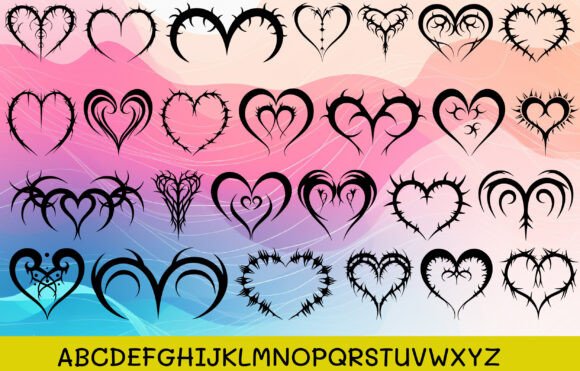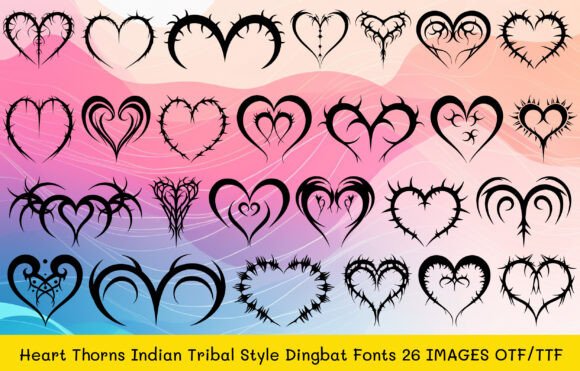
Introducing Heart Thorns Font: A Unique Blend of Tribal Elegance and Romantic Charm
Are you a designer, crafter, or DIY enthusiast looking for a font that adds a touch of cultural charm and whimsy to your creations? Look no further than the Heart Thorns Font, a digital product featuring 26 unique heart-themed designs inspired by intricate Indian tribal patterns. This stunning font is perfect for crafting, logos, invitations, and more, allowing you to bring creativity and style to your digital and print projects.
Inspired by Indian Tribal Patterns
The Heart Thorns Font is deeply rooted in Indian tribal art, known for its intricate patterns, bold lines, and symbolic motifs. Each letter from A to Z has been carefully crafted to reflect the beauty and elegance of these traditional designs, with a modern twist. The result is a font that is both timeless and trendy, perfect for those who appreciate cultural heritage and unique aesthetics.
Key Features of Heart Thorns Font
- 26 Unique Designs: Each letter from A to Z features a distinct heart-themed design, ensuring that your creations stand out from the crowd.
- Tribal Inspiration: Inspired by Indian tribal patterns, these designs bring a touch of cultural charm to your projects.
- Versatile Use: Perfect for crafting, logos, invitations, and more, this font is ideal for a wide range of creative projects.
Whether you’re a professional designer or a DIY enthusiast, the Heart Thorns Font is an excellent addition to your creative toolkit. Use it to:
- Create stunning logos and branding materials that reflect your unique style.
- Design beautiful invitations, greeting cards, and stationery that impress.
- Add a touch of elegance to your craft projects, such as scrapbooking and jewelry making.
- Develop unique digital products, like printables and social media graphics.
Benefits of Using Heart Thorns Font
By incorporating the Heart Thorns Font into your creative projects, you’ll enjoy several benefits:
- Unique Aesthetic: Stand out from the crowd with a font that is both distinctive and eye-catching.
- Cultural Significance: Add a touch of cultural heritage to your designs, perfect for those who appreciate traditional art.